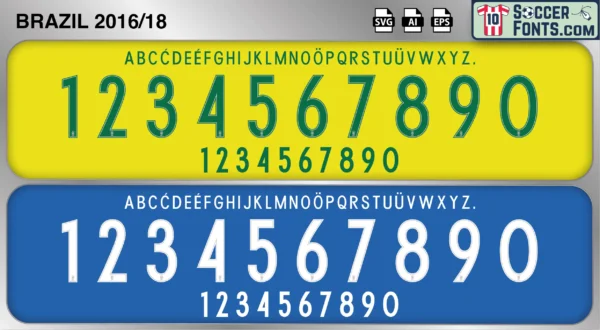
Brazil 2016-18 Font
The Brazil 2016-18 font is an editable soccer jersey lettering design in vector format inspired by the Brazil kit style used during the 2016-18 football seasons. This football font artwork is prepared for football shirt recreations, custom jersey projects, football kit mockups and sports graphic design workflows.
The 2016-18 era marked the beginning of a new and highly successful cycle for the Brazilian national team under coach Tite. Following the disappointment of the 2014 FIFA World Cup and the 2015 Copa América, Brazil quickly re-established itself as one of the strongest teams in international football. The squad featured Neymar, Philippe Coutinho, Marcelo, Thiago Silva, Casemiro, Gabriel Jesus and Alisson Becker during an impressive qualification campaign for the 2018 FIFA World Cup. Brazil played attractive and effective football throughout this period and entered the tournament in Russia as one of the leading contenders for the title.
The Brazil 2016-18 font became associated with the revival of Brazilian football and a generation that restored confidence and excitement among supporters around the world. Brazil shirts from this era remain especially popular because of their connection with Neymar’s peak years, Tite’s successful rebuilding project and the road to the 2018 World Cup. The Brazil 2016-18 font reflects a period when Brazil successfully combined traditional football identity with a modern tactical approach, creating one of the most respected international teams of the late 2010s and reinforcing the nation’s enduring influence on global football culture.